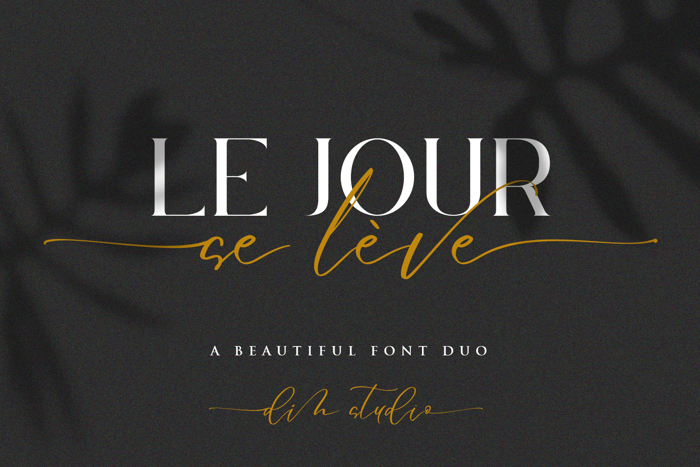
Le Jour Script Font
Le Jour is a stunning combination of calligraphy and modern serifs. It’s naturally handwritten. The combination of fonts will add beauty and luxury to your designs. This font is appropriate for any design, including wedding invitations, social media campaigns, advertisements, branding, quotes, and
merchandise.